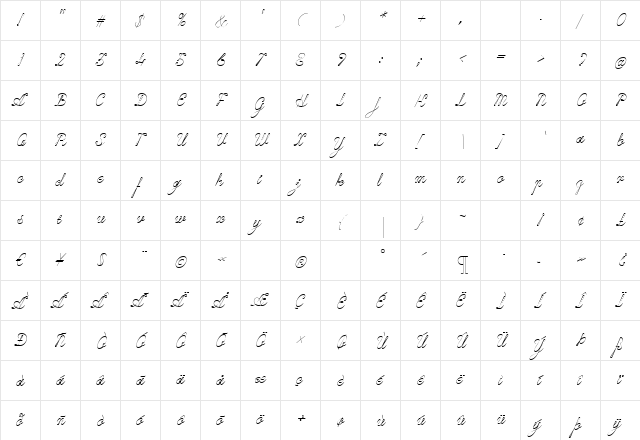
CivilityFormal Regular
Design Context for CivilityFormal Typeface
CivilityFormal is a composed and adaptable typeface that performs quietly and consistently across a wide range of design contexts.